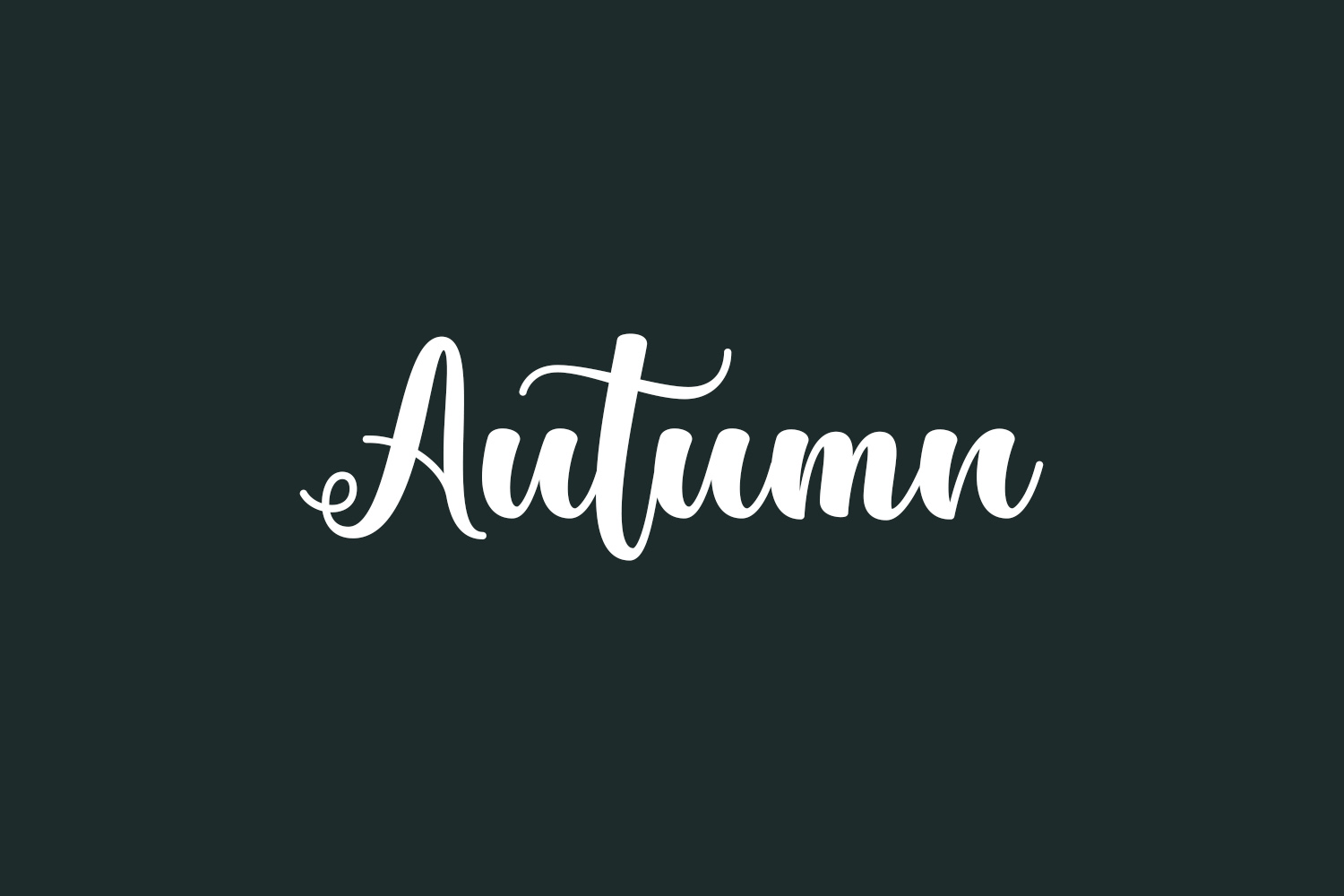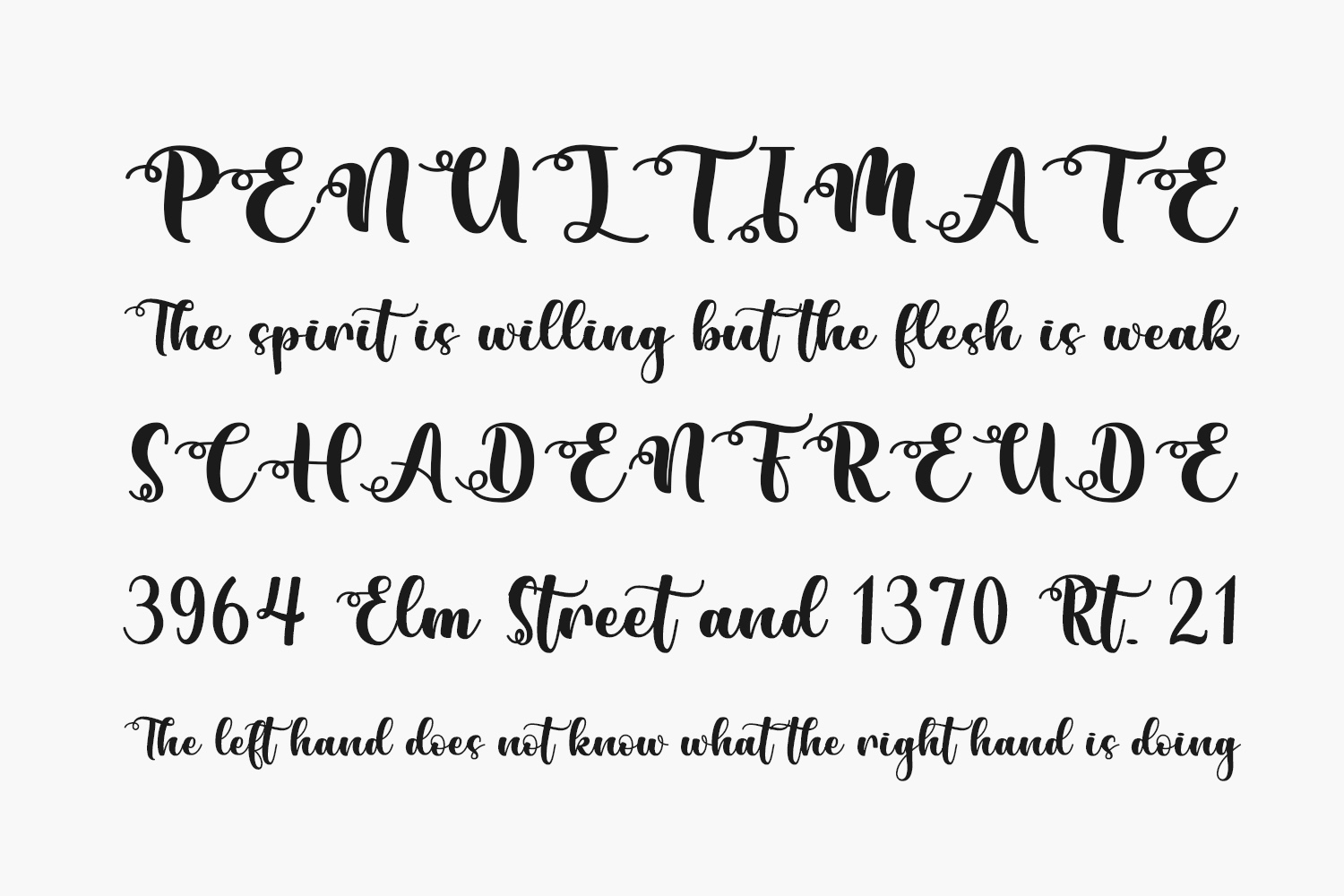
Autumn Free Font is a lovely script font featuring charming, playful characters that seem to dance along the baseline. Add this font to your most creative ideas, and notice how it makes them stand out. Autumn Free Font was designed by Gunawan Soderi and is free for personal use only. Please purchase the full version for commercial use.
Designed by Gunawan Soderi